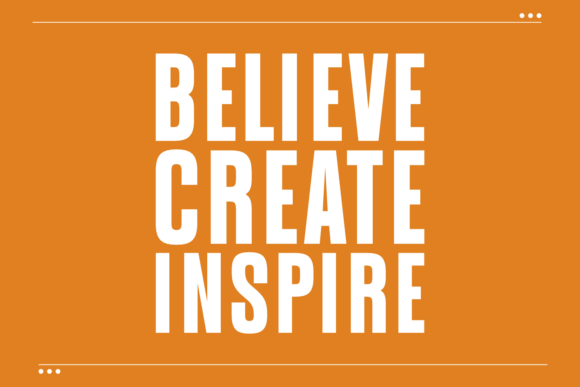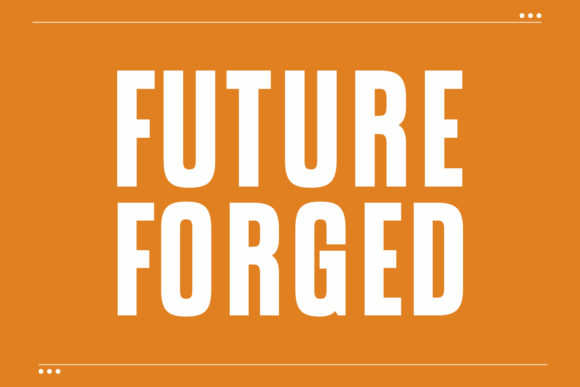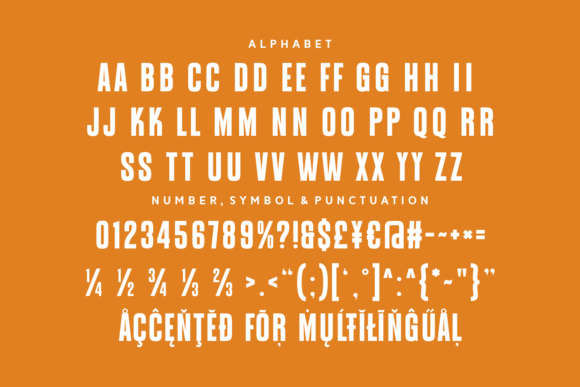
Introduction to Inspires Present Font
Inspires Present is a bold and ultra-condensed sans serif typeface designed for maximum impact.
With its tall letterforms and sleek structure, this font is perfect for headlines, posters, magazine covers, and any project that demands a strong visual presence Its clean geometry and modern flair make it ideal for branding, social media content, editorial layouts, and promotional materials.